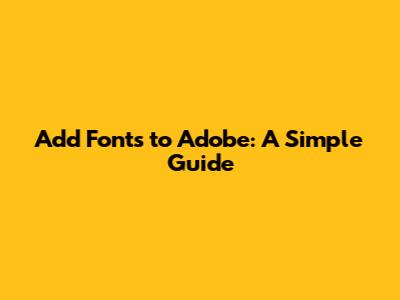
Hey guys! Ever felt like your designs are missing that special something? Chances are, you need to spice things up with some fresh fonts! Fonts can dramatically change the look and feel of your projects, whether you're working on a sleek logo, a captivating brochure, or eye-catching social media graphics. Adobe Creative Cloud offers seamless integration for adding and managing fonts, making it super easy to access a wide variety of typefaces. In this guide, we'll walk you through the simple steps to add fonts to your Adobe applications, so you can unleash your creative potential and make your designs truly stand out. We'll cover everything from using Adobe Fonts (formerly Typekit) to installing fonts from external sources. Trust me, once you get the hang of it, you'll be experimenting with different fonts like a pro!
Why Adding Fonts Matters
Adding fonts is a game-changer for any designer. Choosing the right font can significantly impact how your audience perceives your message. A playful font can add a touch of fun, while a classic serif font can convey professionalism and trustworthiness. Think of fonts as the voice of your design – they communicate personality and style. By expanding your font library, you're equipping yourself with more tools to express your creative vision effectively. Different fonts evoke different emotions and associations. For example, a bold, sans-serif font might be perfect for a modern tech company, while a delicate script font could be ideal for a wedding invitation. Moreover, having a diverse font collection allows you to create unique and memorable designs that stand out from the crowd. In a world saturated with visual content, using distinctive fonts can help you capture attention and leave a lasting impression. So, don't underestimate the power of typography – it's an essential element of great design.
Method 1: Using Adobe Fonts (Formerly Typekit)
Adobe Fonts (previously known as Typekit) is a fantastic resource that's included with most Adobe Creative Cloud subscriptions. It gives you access to thousands of high-quality fonts that you can easily activate and use in all your Adobe applications. Here’s how to use it:
Step 1: Open Adobe Creative Cloud Desktop App
First things first, make sure you have the Adobe Creative Cloud desktop app installed and running. This is your central hub for managing your Adobe subscriptions and applications. If you don't have it installed, you can download it from the Adobe website. Once installed, open the app and sign in with your Adobe ID. You should see a list of all the Adobe apps you have installed, like Photoshop, Illustrator, and InDesign. The Creative Cloud desktop app is super handy because it keeps all your Adobe apps updated and provides access to other services like Adobe Fonts and Behance. It's also where you manage your account settings and preferences. So, make sure you're familiar with the Creative Cloud desktop app – it's an essential tool for any Adobe Creative Cloud user.
Step 2: Navigate to Adobe Fonts
In the Creative Cloud desktop app, look for the "Fonts" tab in the top navigation bar. Click on it, and you'll be taken to the Adobe Fonts interface. If you don't see the "Fonts" tab, make sure your Creative Cloud desktop app is up to date. Sometimes, older versions might not have all the latest features. The Adobe Fonts interface is where you can browse, search, and activate fonts. It's a treasure trove of typography, with fonts from leading foundries and designers. You can filter fonts by various criteria, such as classification (serif, sans-serif, script), properties (weight, width, x-height), and language support. This makes it easy to find the perfect font for your project. So, take some time to explore the Adobe Fonts interface and discover the vast collection of typefaces available to you.
Step 3: Browse and Activate Fonts
Now for the fun part! You can browse through the font library or use the search bar to find specific fonts. When you find a font you like, click on it to view more details. You'll see a preview of the font in different sizes and styles, as well as information about the designer and foundry. To activate the font, simply toggle the switch next to "Activate." The font will then be automatically downloaded and installed on your computer, ready to use in all your Adobe applications. Activating fonts is super easy and convenient with Adobe Fonts. You can activate as many fonts as you need, and they'll be available across all your devices that are signed in with your Adobe ID. Plus, Adobe Fonts ensures that all fonts are properly licensed and optimized for use in your projects. So, go ahead and activate those fonts and start experimenting with different typefaces in your designs!
Step 4: Using the Fonts in Adobe Applications
Once activated, the fonts will be available in all your Adobe applications, such as Photoshop, Illustrator, and InDesign. Simply open your application, select the text tool, and choose the font from the font menu. If you don't see the font right away, try restarting your Adobe application. Sometimes, it takes a few seconds for the new fonts to appear in the font menu. Using the activated fonts is just like using any other font on your system. You can adjust the size, color, and style of the font to suit your design needs. And because the fonts are synced with your Adobe ID, you can access them on any device where you're signed in to Creative Cloud. This makes it easy to work on your projects from anywhere, without having to worry about missing fonts. So, start using those newly activated fonts and take your designs to the next level!
Method 2: Installing Fonts from External Sources